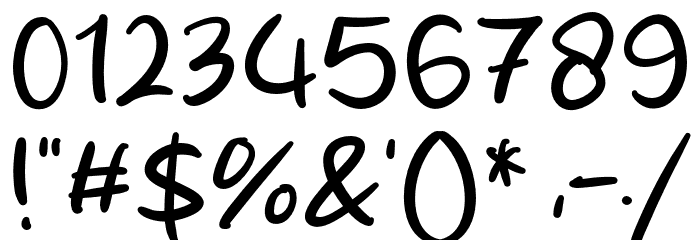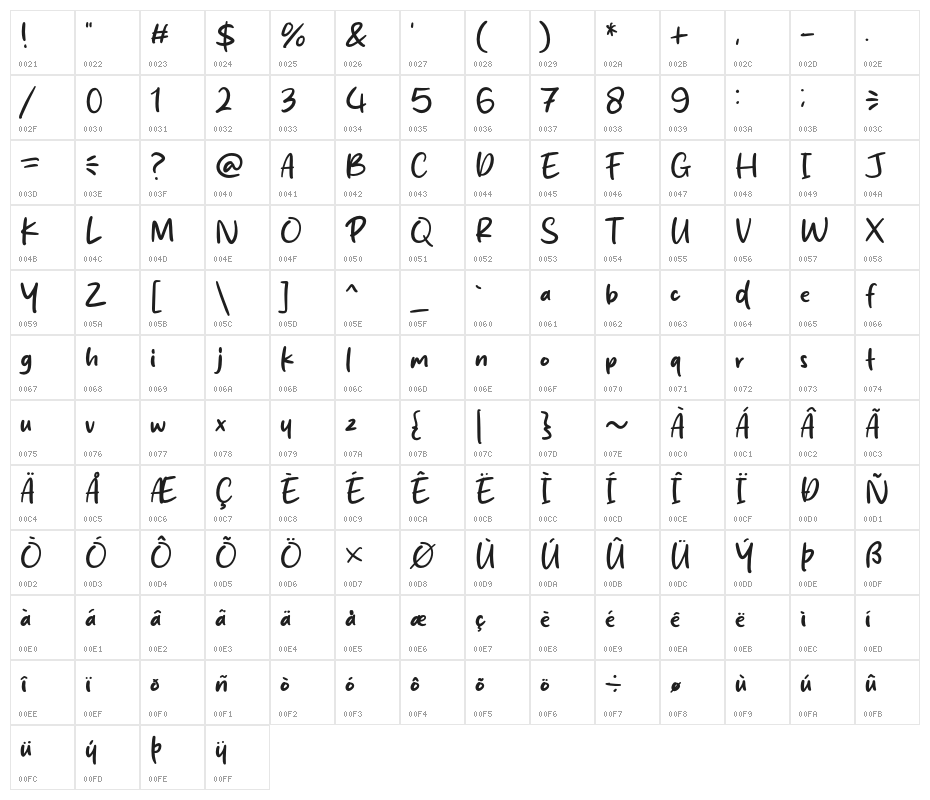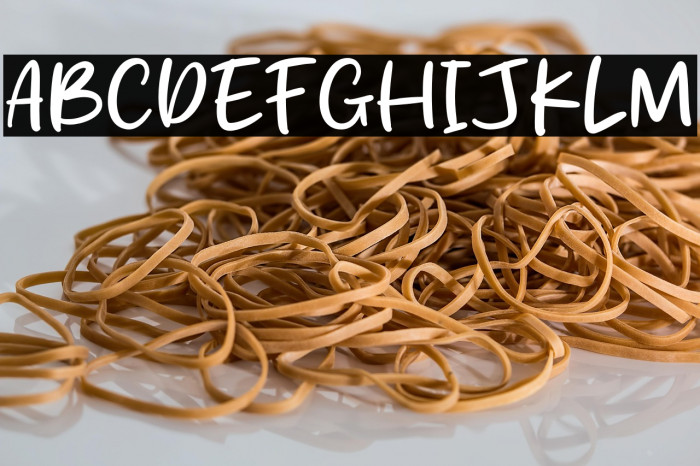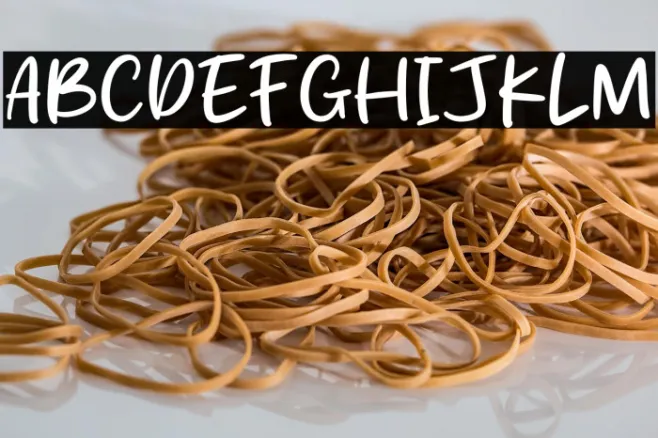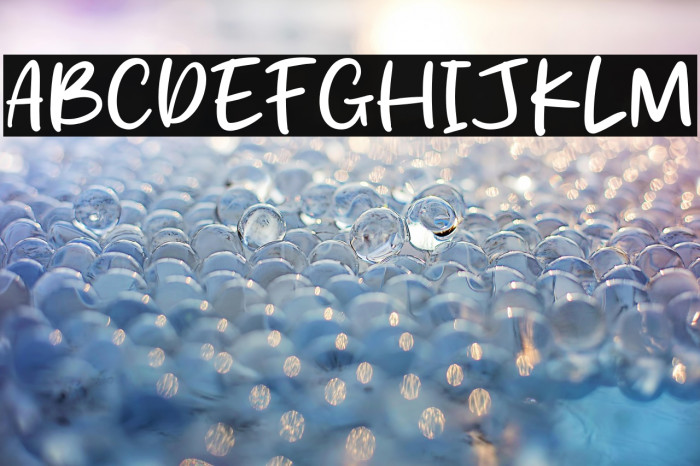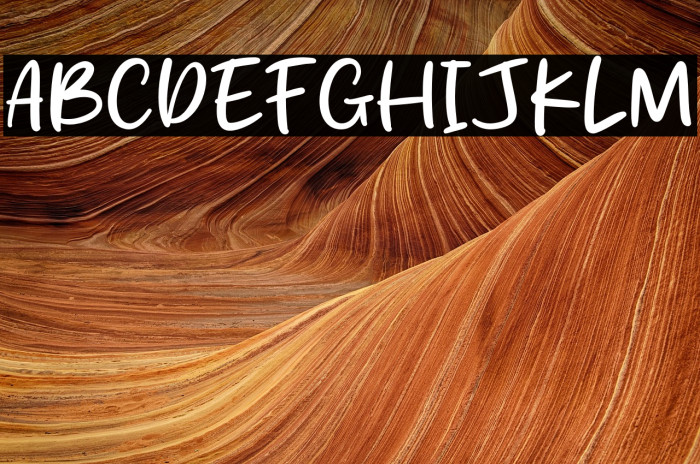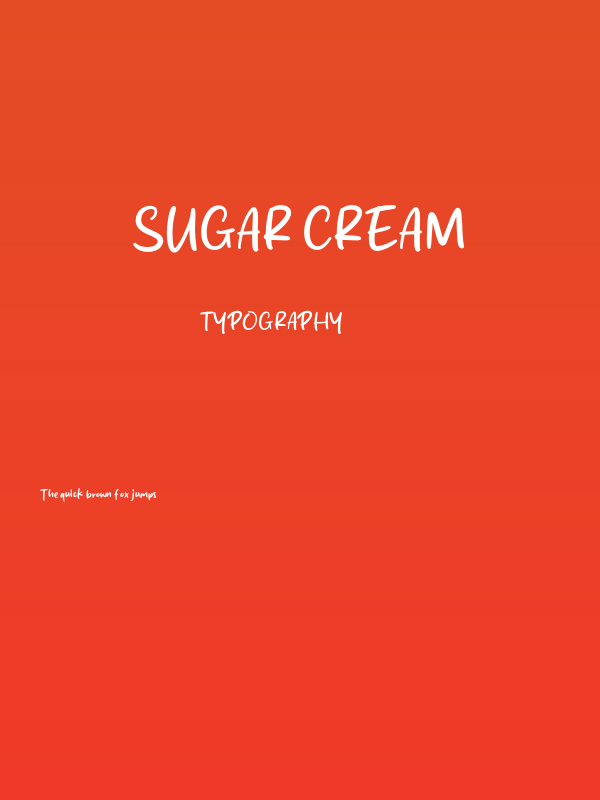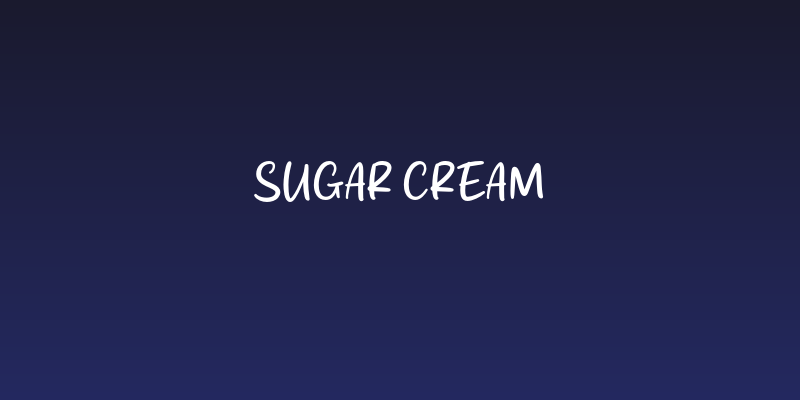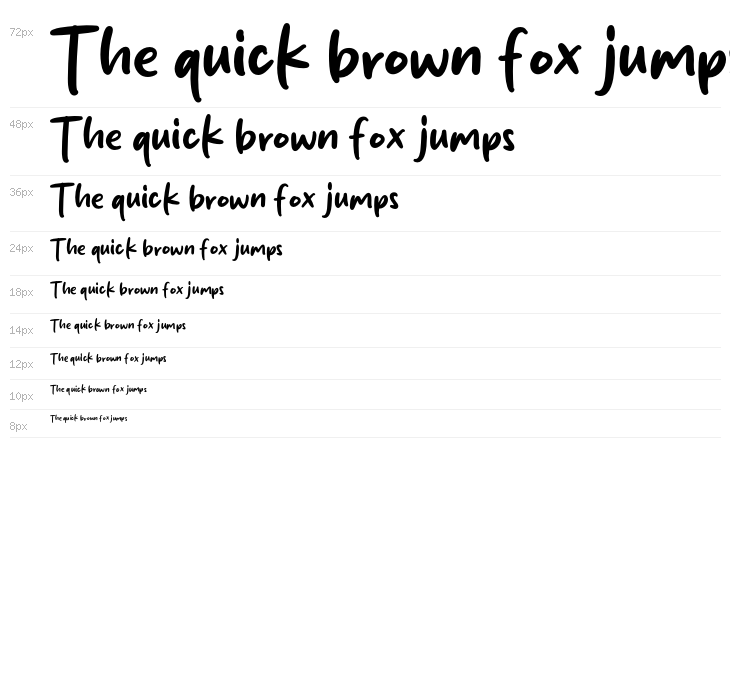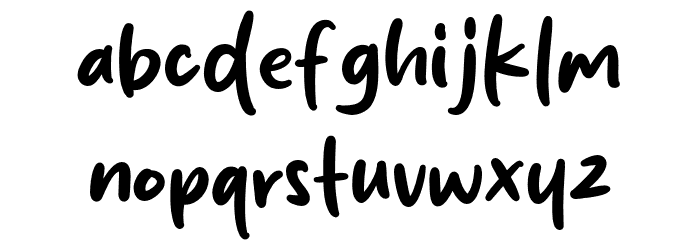
Sugar Cream Font
Sugar Cream Description
This font exudes a playful and casual handwritten style, characterized by its smooth, flowing curves and slightly uneven baseline. The letters are bold and rounded, giving a friendly and approachable feel. The uppercase and lowercase letters maintain a consistent style, with a slight slant that adds to the informal aesthetic. The numerals and special characters are equally playful, integrating seamlessly with the alphabetic characters. This font is versatile, suitable for projects that require a personal touch or a relaxed vibe.
| Overall Style | Casual, Playful |
| Use Case | Logos, Headlines, Informal Text |
| Proposed Projects | Ideal for greeting cards, children's books, personal blogs, and informal branding. |